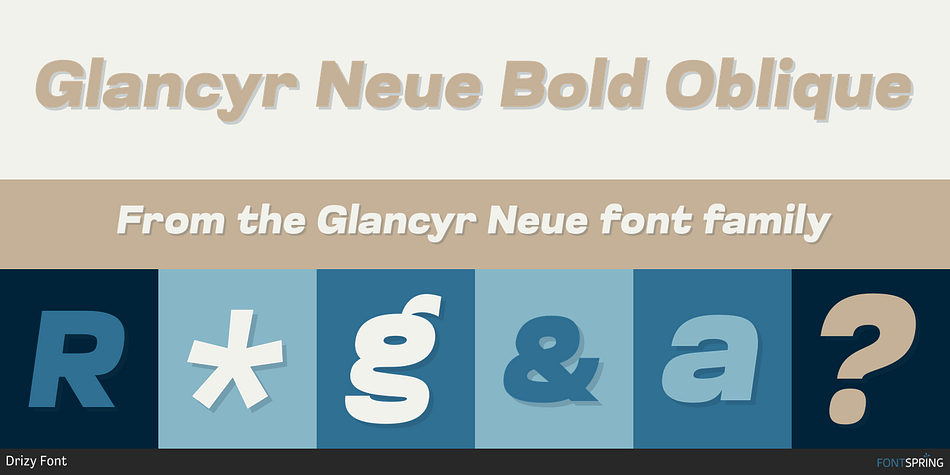
Glancyr Neue Bold Oblique
Designed by Panca Ahmadi Hasan, Glancyr Neue is a sans serif font family. This typeface has forty-three styles and was published by Drizy Font.
GlancyrNeue – Modern Geometric Industrial Font
GlancyrNeue is a sleek and versatile typeface that marries modern elegance with industrial strength. This font stands out with it’s clean lines, geometric shapes, and contemporary aesthetics, making it perfect for a wide range of design projects.
GlancyrNeue features:
Character Set (Uppercase & Lowercase)
Punctuation & Numbers
Variable: Thin, Extra Light, Light, Regular, Medium, Semi Bold, Bold
Multilingual
Stylistic Alternates
Standard & Discretional Ligatures